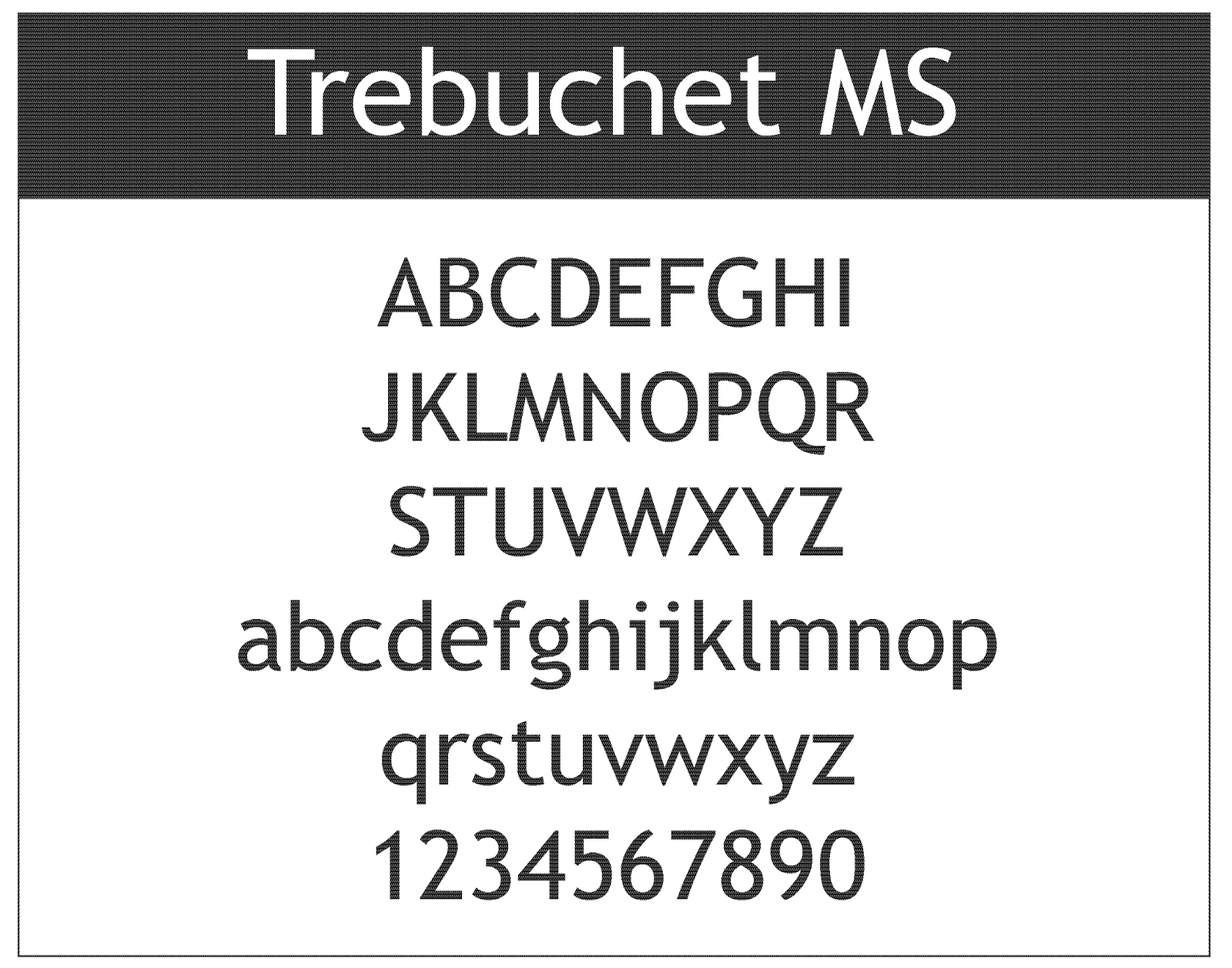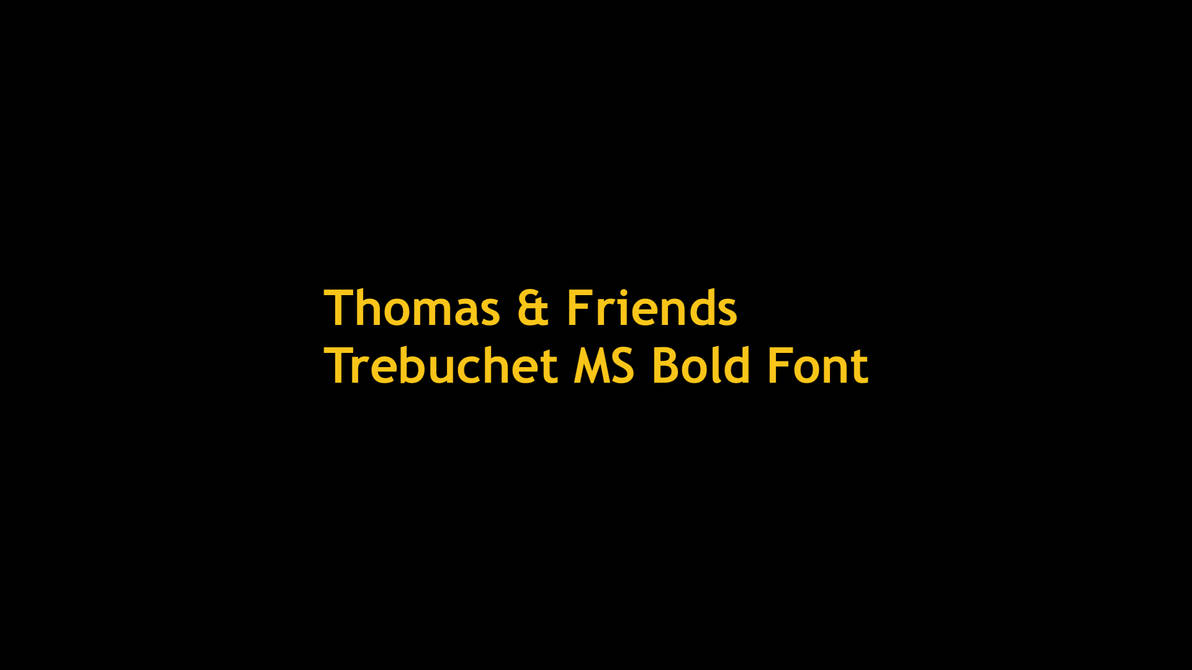
Trebuchet Ms Font Generator . trebuchet ms font family was designed by vincent connare and published by microsoft corporation. This paragraph is in trebuchet ms. this is a sub heading in trebuchet ms. just add a.ttf file of trebuchet ms to the site and add it to the code or something. trebuchet ms was one of three fonts used as part of windows xp’s default theme, following ms sans serif and tahoma. Keep reading for how to use the buttons to the left. use our free trebuchet ms font generator tool below to create your own custom design logo or image. Enter your text, select a font, choose a font size, and.
Enter your text, select a font, choose a font size, and. this is a sub heading in trebuchet ms. This paragraph is in trebuchet ms. trebuchet ms was one of three fonts used as part of windows xp’s default theme, following ms sans serif and tahoma. use our free trebuchet ms font generator tool below to create your own custom design logo or image. just add a.ttf file of trebuchet ms to the site and add it to the code or something. trebuchet ms font family was designed by vincent connare and published by microsoft corporation. Keep reading for how to use the buttons to the left.
Trebuchet Ms Font Generator Enter your text, select a font, choose a font size, and. trebuchet ms was one of three fonts used as part of windows xp’s default theme, following ms sans serif and tahoma. use our free trebuchet ms font generator tool below to create your own custom design logo or image. Enter your text, select a font, choose a font size, and. Keep reading for how to use the buttons to the left. this is a sub heading in trebuchet ms. trebuchet ms font family was designed by vincent connare and published by microsoft corporation. just add a.ttf file of trebuchet ms to the site and add it to the code or something. This paragraph is in trebuchet ms.
Trebuchet MS font download Trebuchet Ms Font Generator use our free trebuchet ms font generator tool below to create your own custom design logo or image. This paragraph is in trebuchet ms. just add a.ttf file of trebuchet ms to the site and add it to the code or something. trebuchet ms was one of three fonts used as part of windows xp’s default theme,. Trebuchet Ms Font Generator.
Trebuchet Font Free Download Trebuchet Ms Font Generator Enter your text, select a font, choose a font size, and. trebuchet ms was one of three fonts used as part of windows xp’s default theme, following ms sans serif and tahoma. just add a.ttf file of trebuchet ms to the site and add it to the code or something. Keep reading for how to use the buttons. Trebuchet Ms Font Generator.
Download free Trebuchet MS font, free Gragsie.ttf Regular font for Windows Trebuchet Ms Font Generator this is a sub heading in trebuchet ms. Enter your text, select a font, choose a font size, and. Keep reading for how to use the buttons to the left. trebuchet ms was one of three fonts used as part of windows xp’s default theme, following ms sans serif and tahoma. trebuchet ms font family was designed. Trebuchet Ms Font Generator.
Trebuchet MS Font Family Download Free for Desktop & font Trebuchet Ms Font Generator this is a sub heading in trebuchet ms. Keep reading for how to use the buttons to the left. trebuchet ms font family was designed by vincent connare and published by microsoft corporation. This paragraph is in trebuchet ms. trebuchet ms was one of three fonts used as part of windows xp’s default theme, following ms sans. Trebuchet Ms Font Generator.